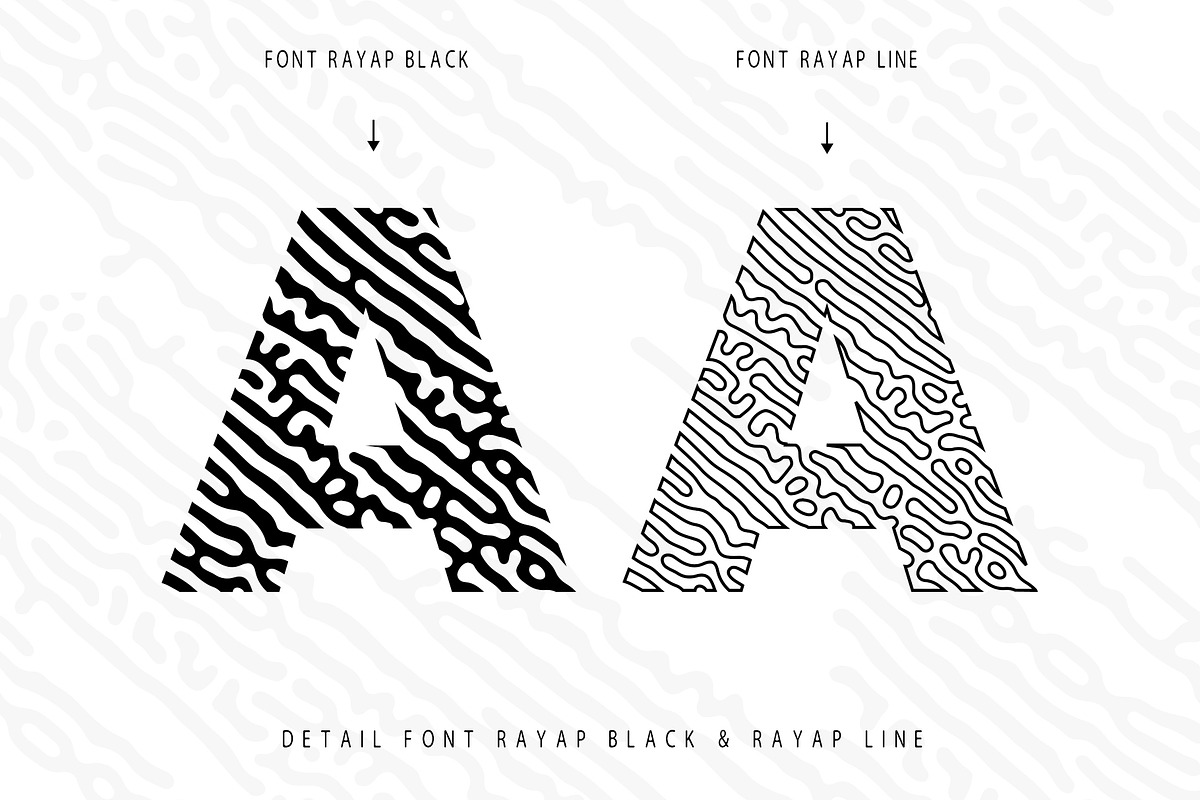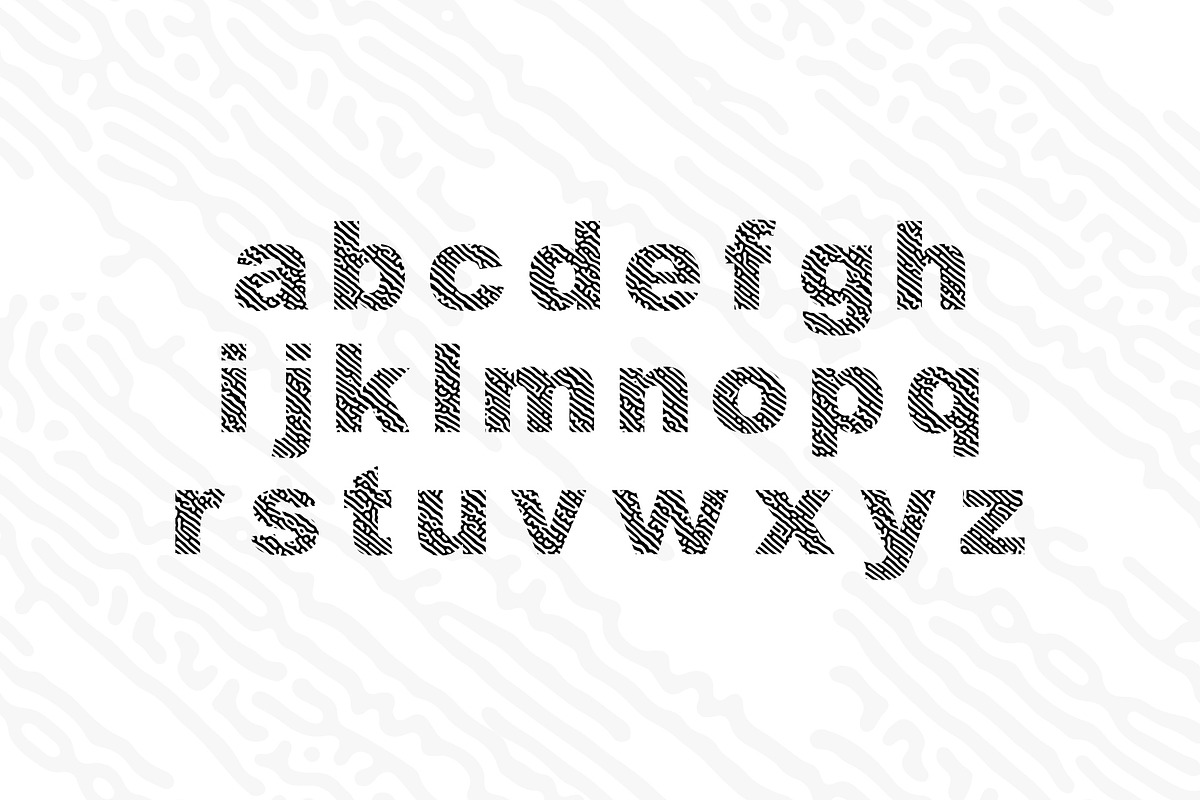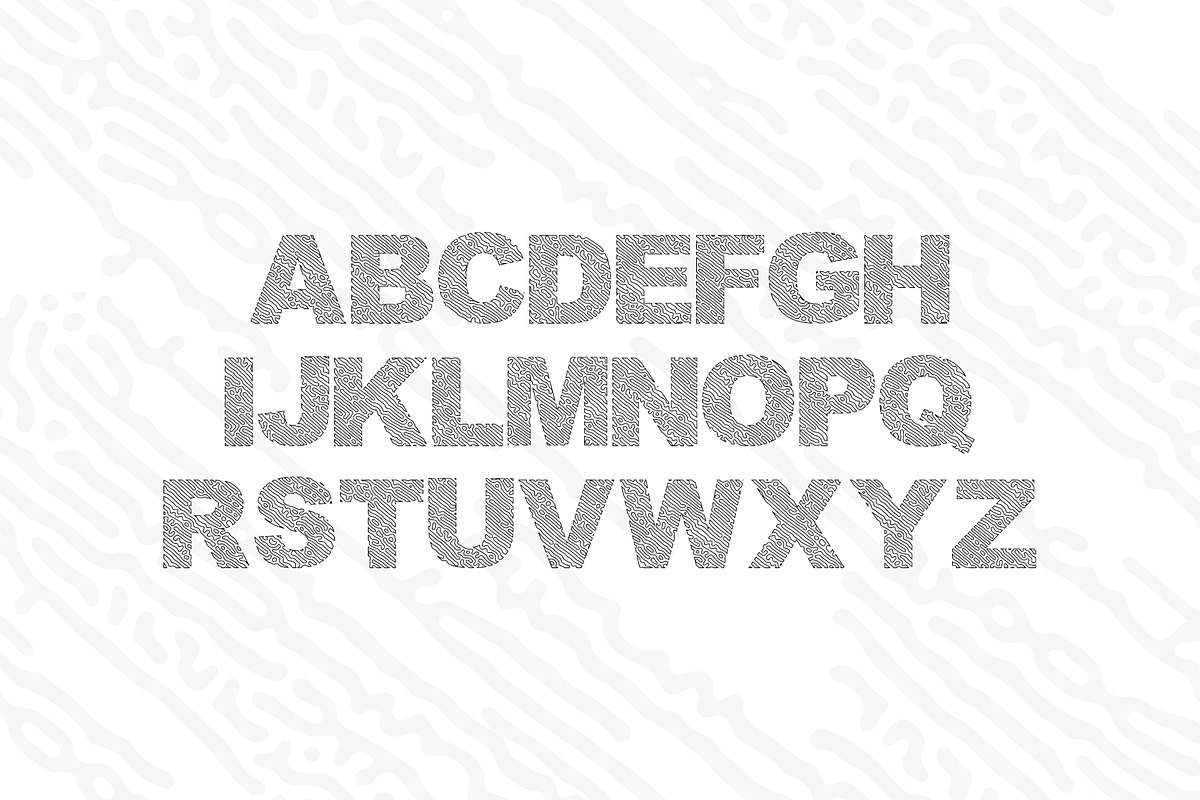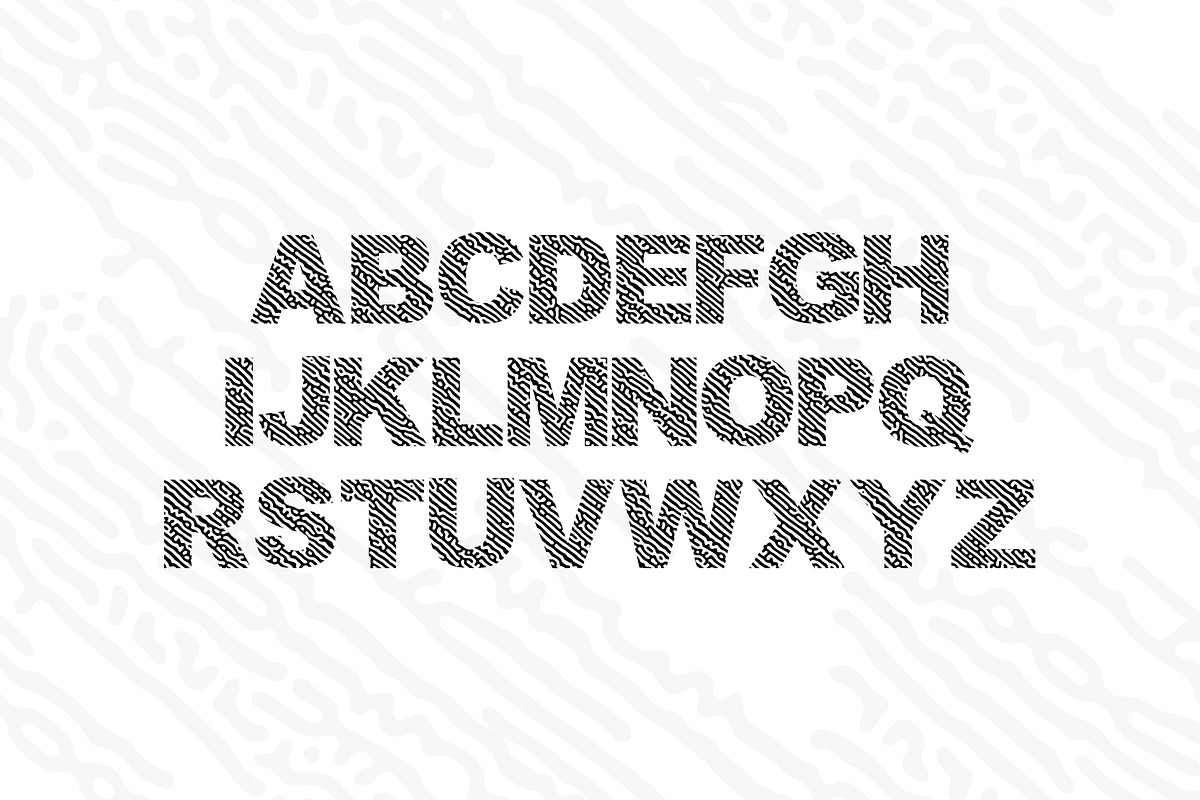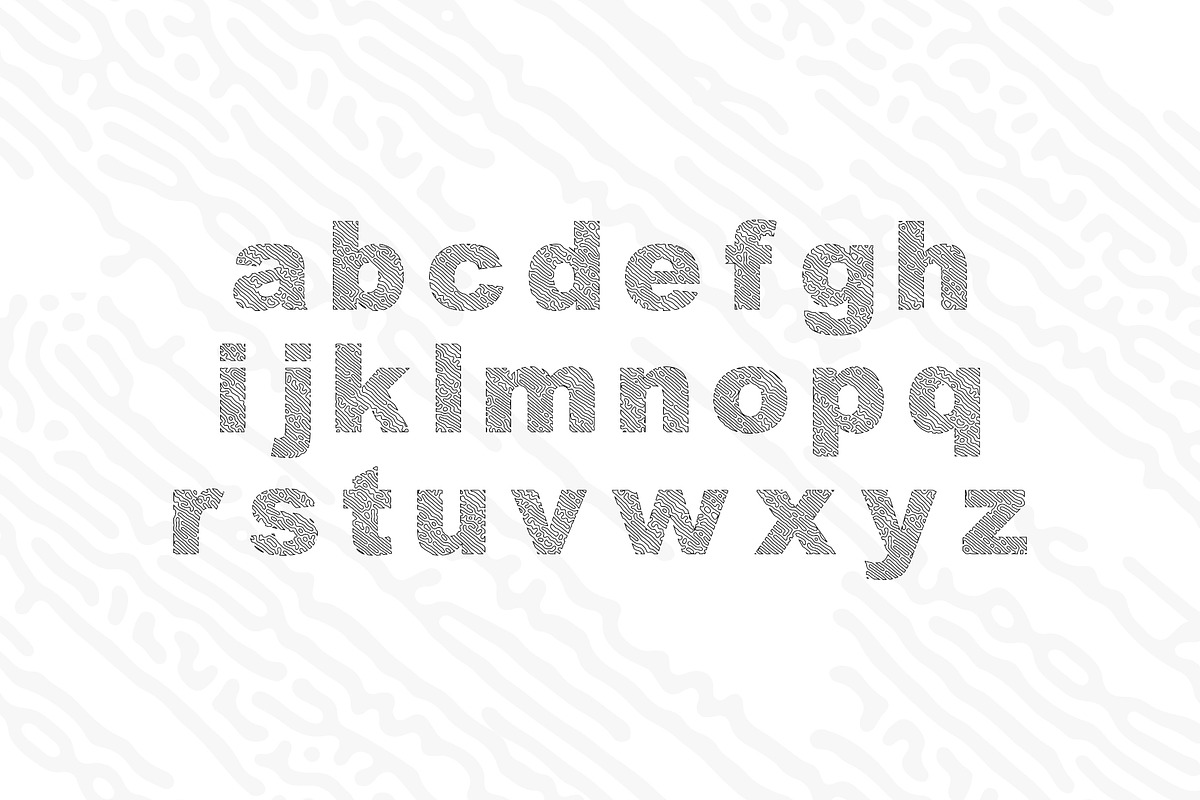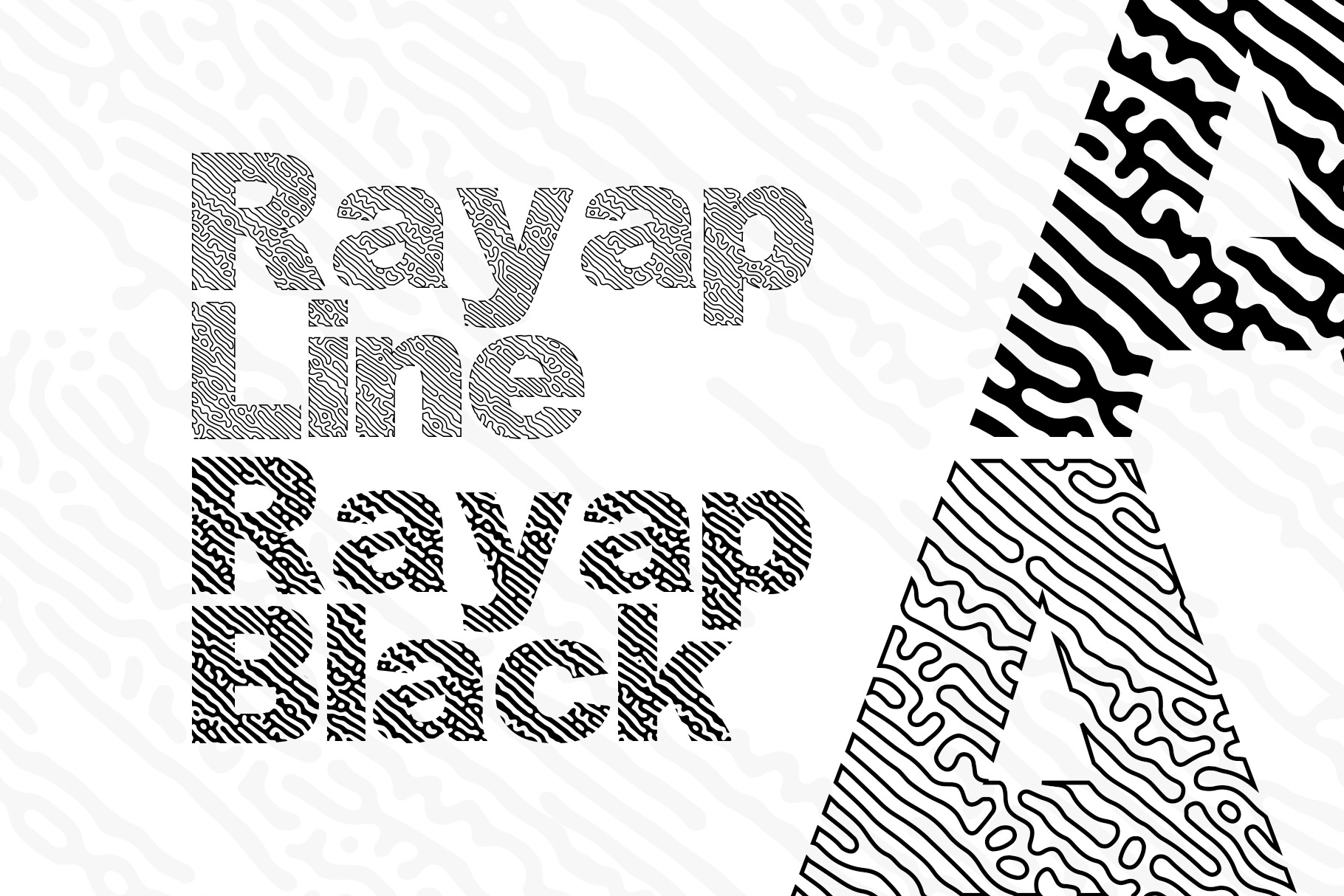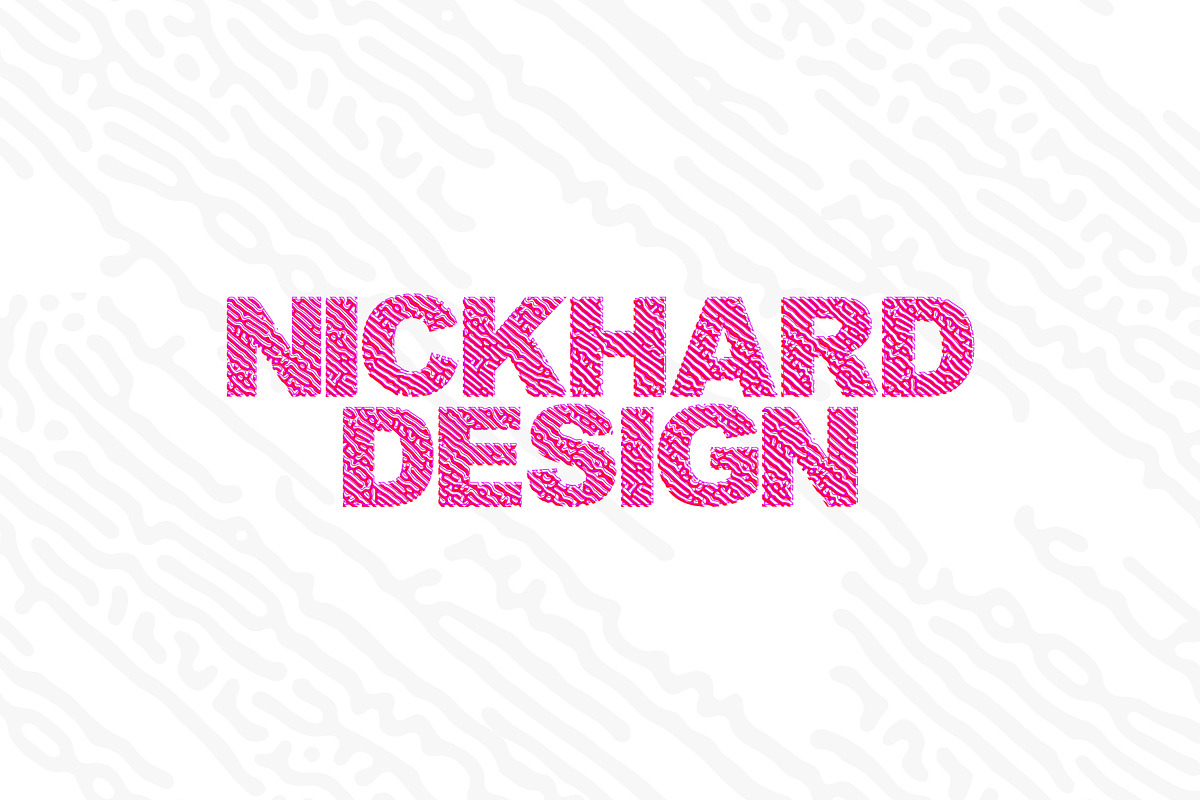
Rayap Font
Rayap is a [textured, hand-lettered] display font with a [retro, doodle-inspired] character. Every letter has a [raw, handmade] feel that brings personality and warmth to your designs.